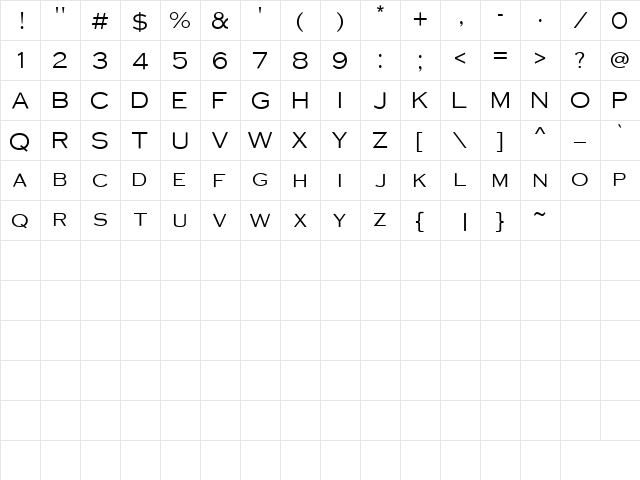
Sans-Copperplate Gothic Regular
Design Context for Sans-Copperplate Gothic Typeface
Sans-Copperplate Gothic has the quiet confidence of well-executed sans-serif typography: versatile, unobtrusive, and dependable at any size.
Font Pairing: Works well alongside a characterful serif or display font that can carry the expressive load while Sans-Copperplate Gothic handles the functional copy.
Pro Tip: Pair Sans-Copperplate Gothic with a display or serif font for headlines — its neutral character makes it an excellent supporting player in complex typographic systems.